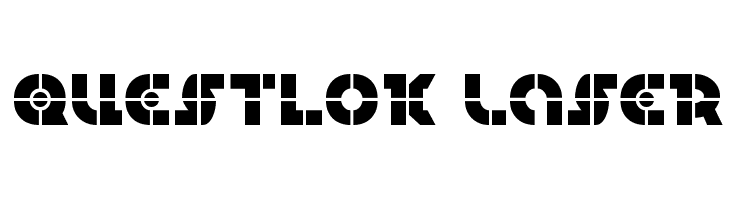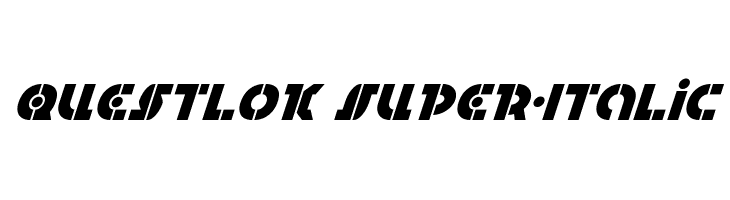
• Questlok Laser 字体
A bold, futuristic font with geometric shapes and circular cutouts, ideal for modern designs.
• Questlok Laser Italic 字体
A futuristic, stencil-like font with bold, angular characters and a dynamic slant.
• Questlok Leftalic 字体
A bold, geometric stencil-style font with a modern industrial feel.
• Questlok Semi-Italic 字体
A bold, geometric, semi-italic font with a futuristic and industrial style.
• Questlok Super-Italic 字体
A bold, geometric, and futuristic italic font with sharp angles and dynamic style.
• Questlok Title 字体
A bold, geometric font with a modern, futuristic style.
• Questlok Title Italic 字体
A bold, italic, and geometric font with sharp, angular letterforms.
• QuestraDoodle 字体
( Zoe Kierce )
A playful, hand-drawn font with a doodle-like, artistic style.
• QuestraHollow 字体
( Zoe Kierce )
A geometric, hollow font with a futuristic and abstract design.
• QuestraSolid 字体
( Zoe Kierce )
A bold, geometric font with unique cut-out shapes and a modern, decorative style.